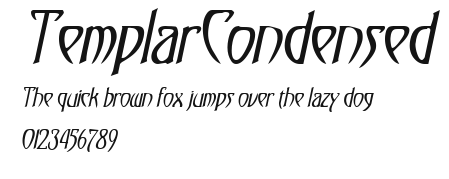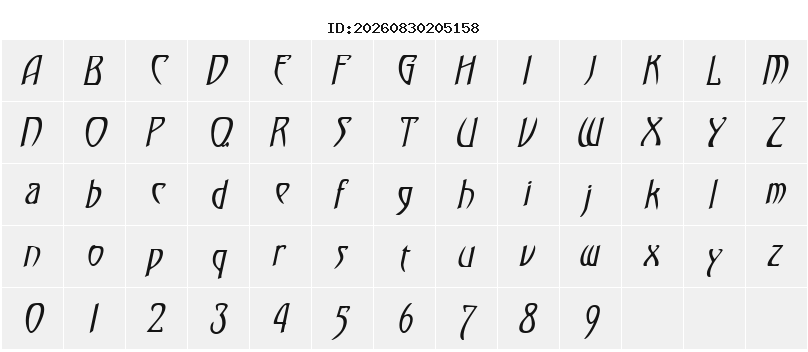
About TemplarCondensed.ttf
TemplarCondensed.ttf is a modern, elegant sans-serif font designed for ultimate readability and visual harmony. Perfect for branding, headlines, web design, and print materials.